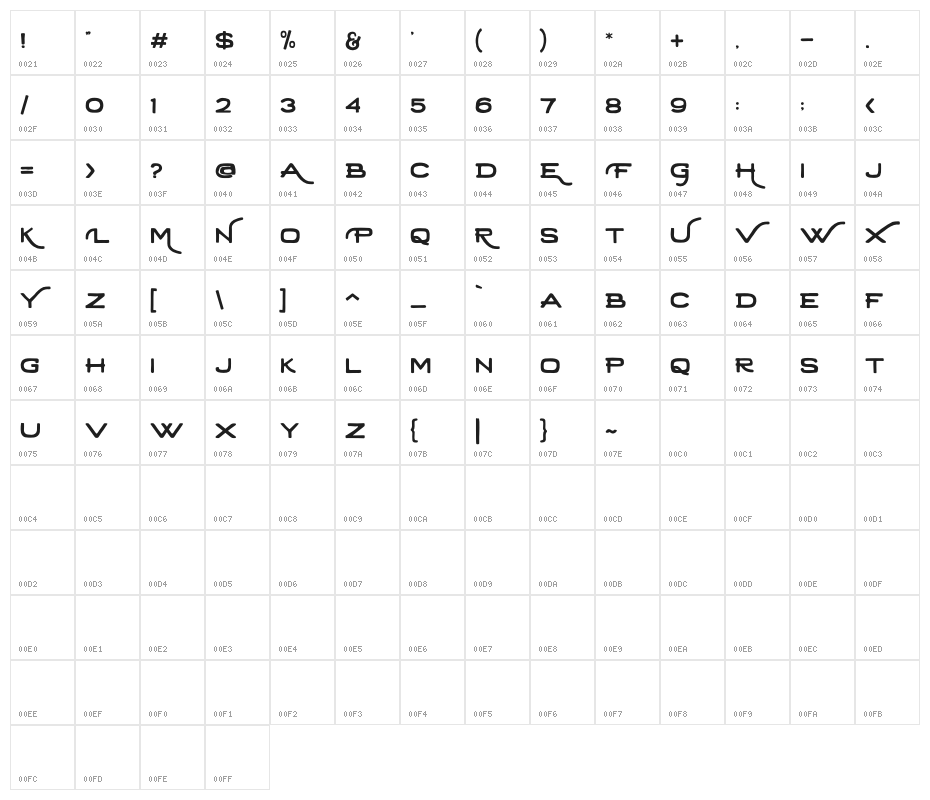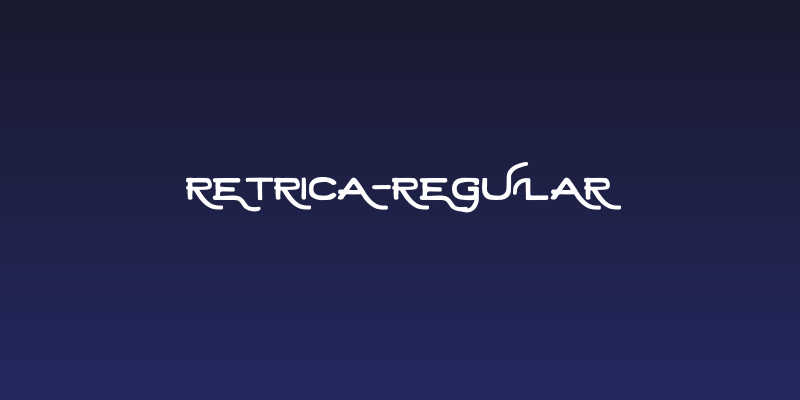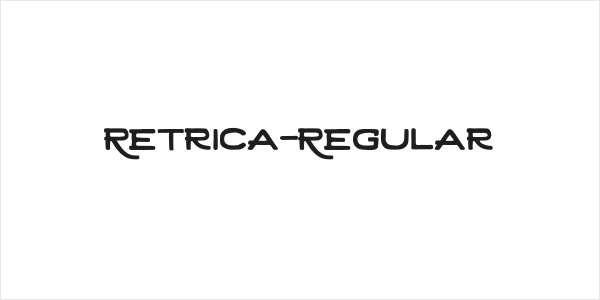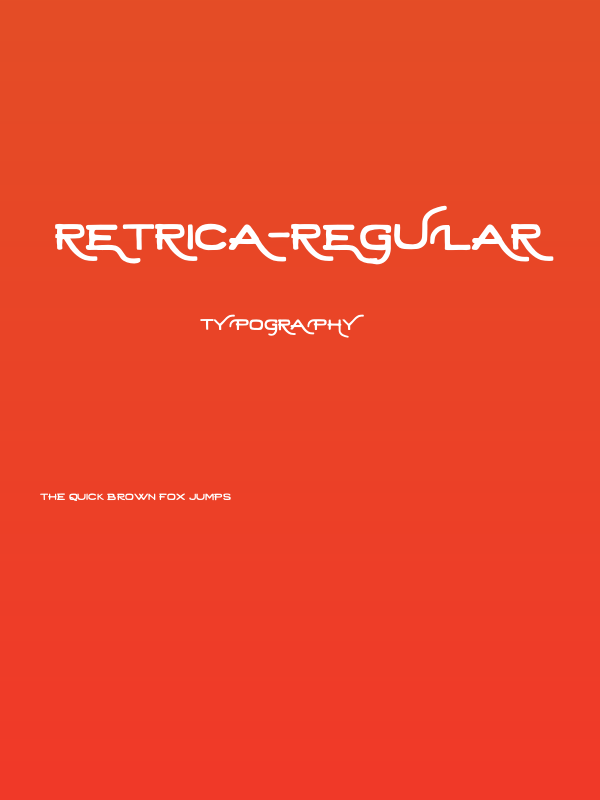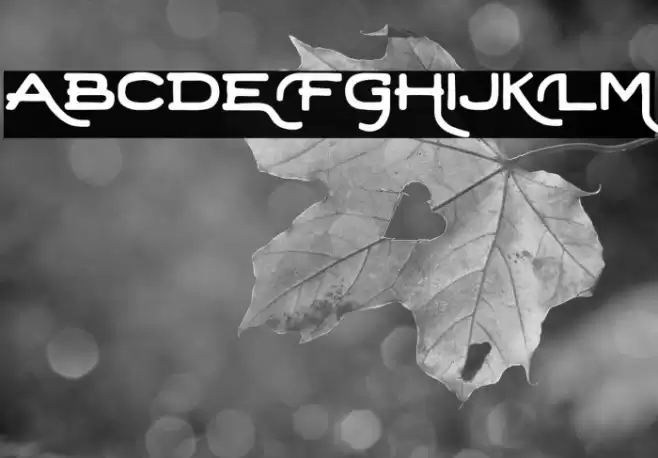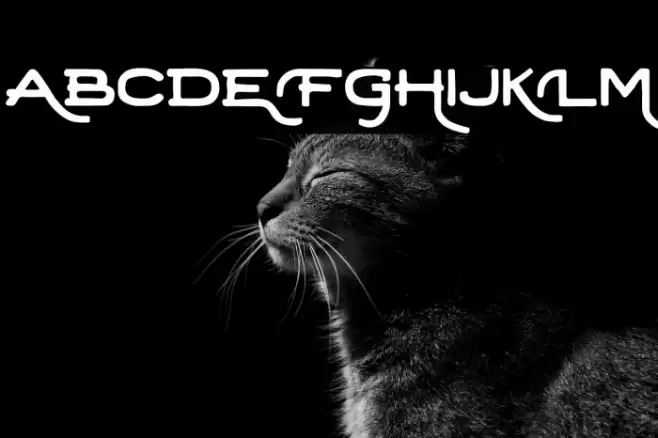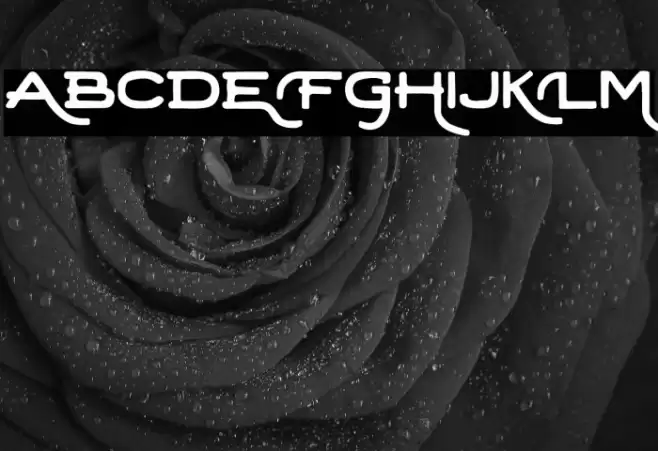
Retrica-Regular Font
Retrica-Regular Description
This font features a unique blend of modern and decorative elements, characterized by its bold and artistic letterforms. The uppercase letters exhibit a playful yet structured design, with some characters incorporating extended strokes and curves that add a whimsical touch. The lowercase letters maintain a consistent style, complementing the uppercase with their rounded and smooth edges. The numerals are bold and clear, ensuring readability while maintaining the font's distinctive style. Special characters are crafted with the same attention to detail, making them suitable for a variety of creative applications.